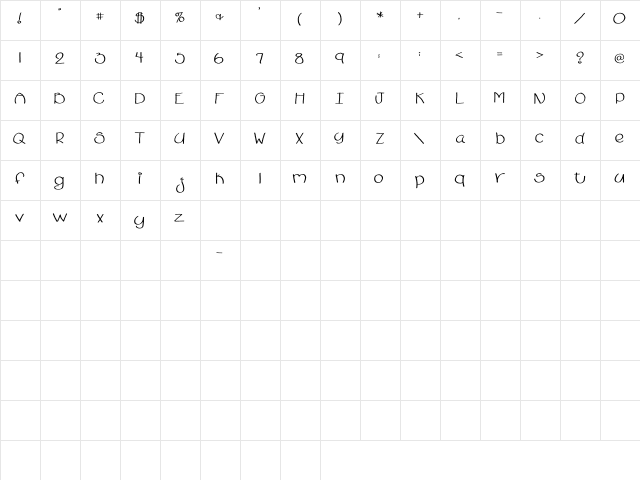
2Peas Loose Kurls 2Peas Loose Kurls Font Preview
Design Context for 2Peas Loose Kurls Typeface
2Peas Loose Kurls is a composed and adaptable typeface that performs quietly and consistently across a wide range of design contexts.
Pro Tip: Use 2Peas Loose Kurls in both headline and body roles to test its range before committing to a single application.